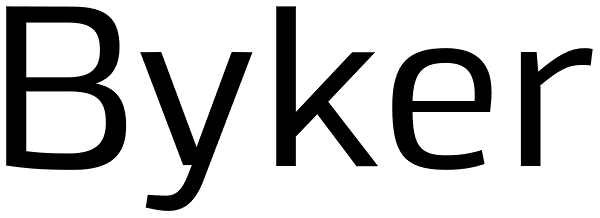
Byker
Byker is a geometric sans serif font that blends technology with handcrafted skill. The letterforms are constructed digitally from a technical grid and overlaid with handmade curves. The combination of this process creates a strong, organic font...